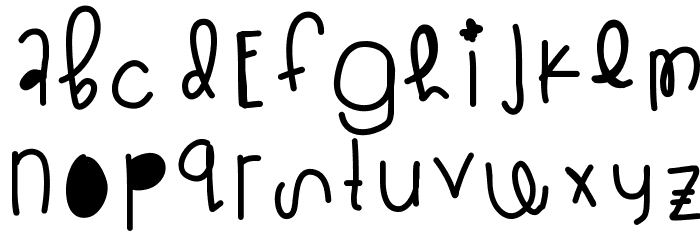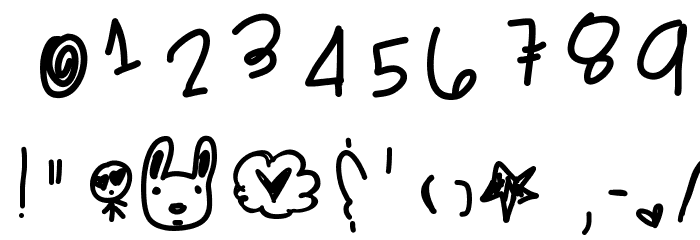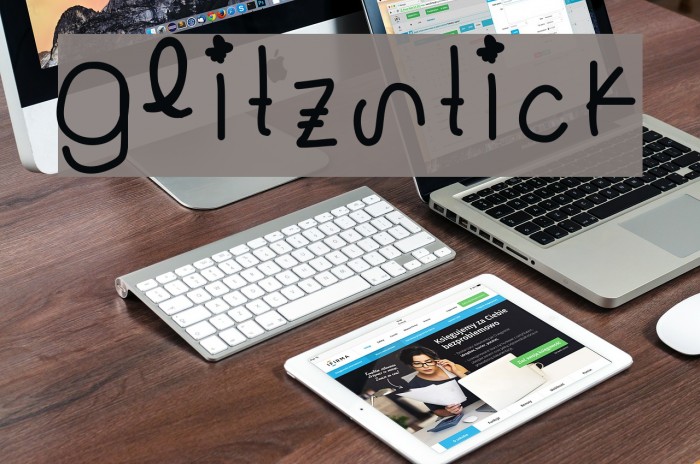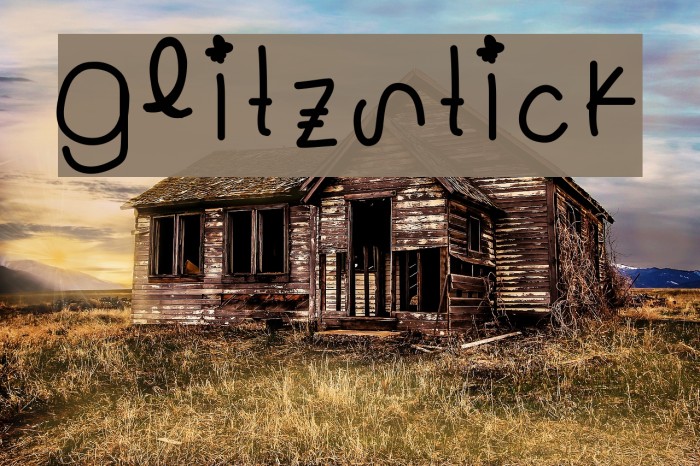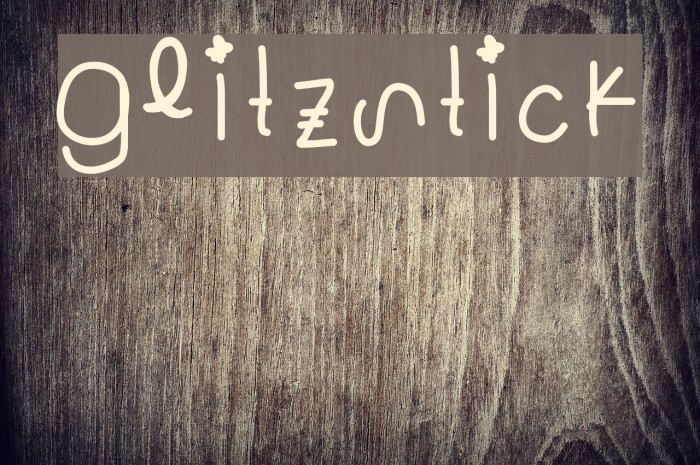
Glitzstick Font
This playful and whimsical font features a handwritten style with a casual, friendly appearance. The characters are rounded and slightly irregular, giving them a charming, informal look. The uppercase and lowercase letters maintain a consistent style, with some letters featuring unique embellishments like stars or dots. Numbers are clear and easy to read, while special characters add a touch of fun with their quirky designs. The overall feel is light-hearted and artistic, making it suitable for creative projects.
A playful, handwritten font with a whimsical and casual style.
- Proposed Projects: Ideal for children's books, greeting cards, playful branding, and creative posters.
- Use Case: Headlines, Logos, Creative projects